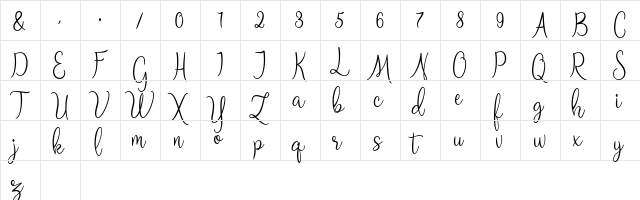
Zimphony Regular Font Preview
Zimphony Regular
Zimphony Regular Font Details
| Designer | Almeerastudio |
Design Context for Zimphony Typeface
Zimphony is a composed and adaptable typeface that performs quietly and consistently across a wide range of design contexts.